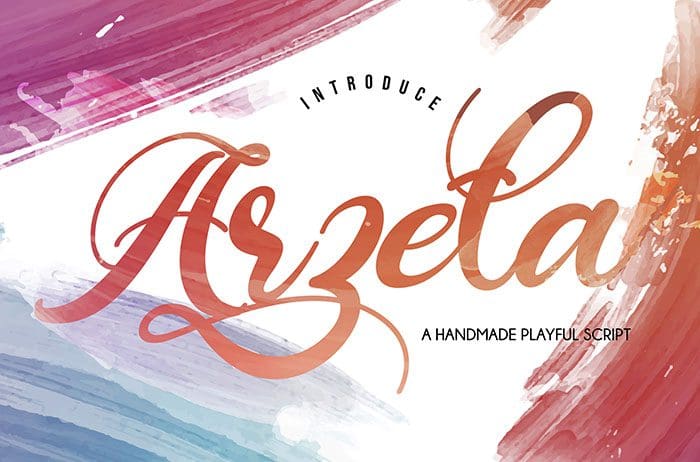
Arzeta Script Font
Arzeta is an exciting script font with a unique calligraphy style. This font is very suitable for use in packaging, printing, logo, or poster. Thanks to Vunira Studio for sharing this font! Take a look at this portfolio for more of his stunning fonts.